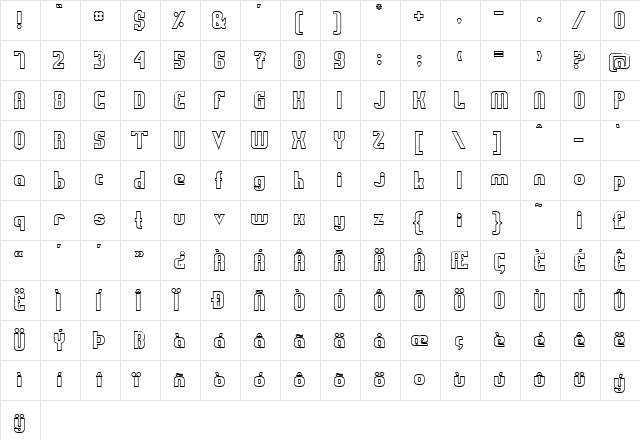
Sweden Funkis Outlined Regular
Design Context for Sweden Funkis Outlined Typeface
Sweden Funkis Outlined has an approachable, lighthearted character — its loose, expressive forms are well-suited to children's content, casual branding, and fun-first design.
Great for children's books, toy packaging, family event branding, and casual consumer-facing design.
Font Pairing: Pairs well with a rounded or humanist sans for body copy, maintaining the friendly tone without relying on Sweden Funkis Outlined to carry extended reading.
Pro Tip: Avoid using Sweden Funkis Outlined for long passages of text — it works best for headlines, labels, and short calls to action.